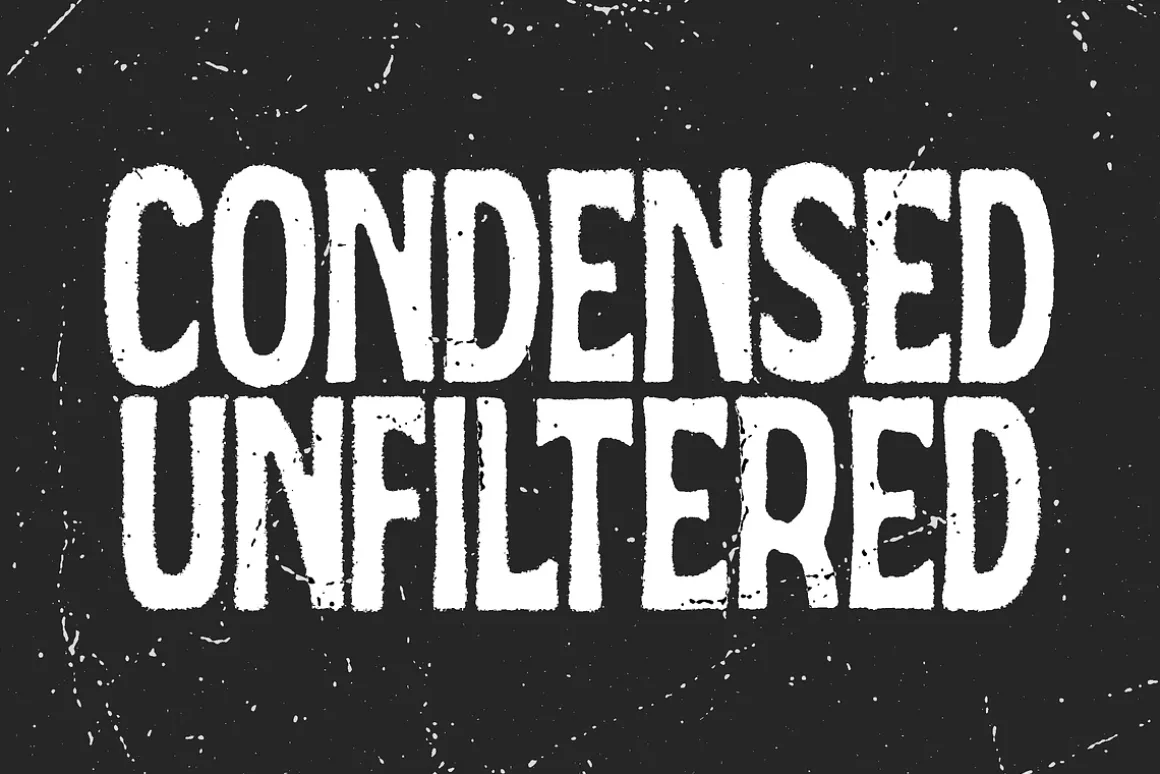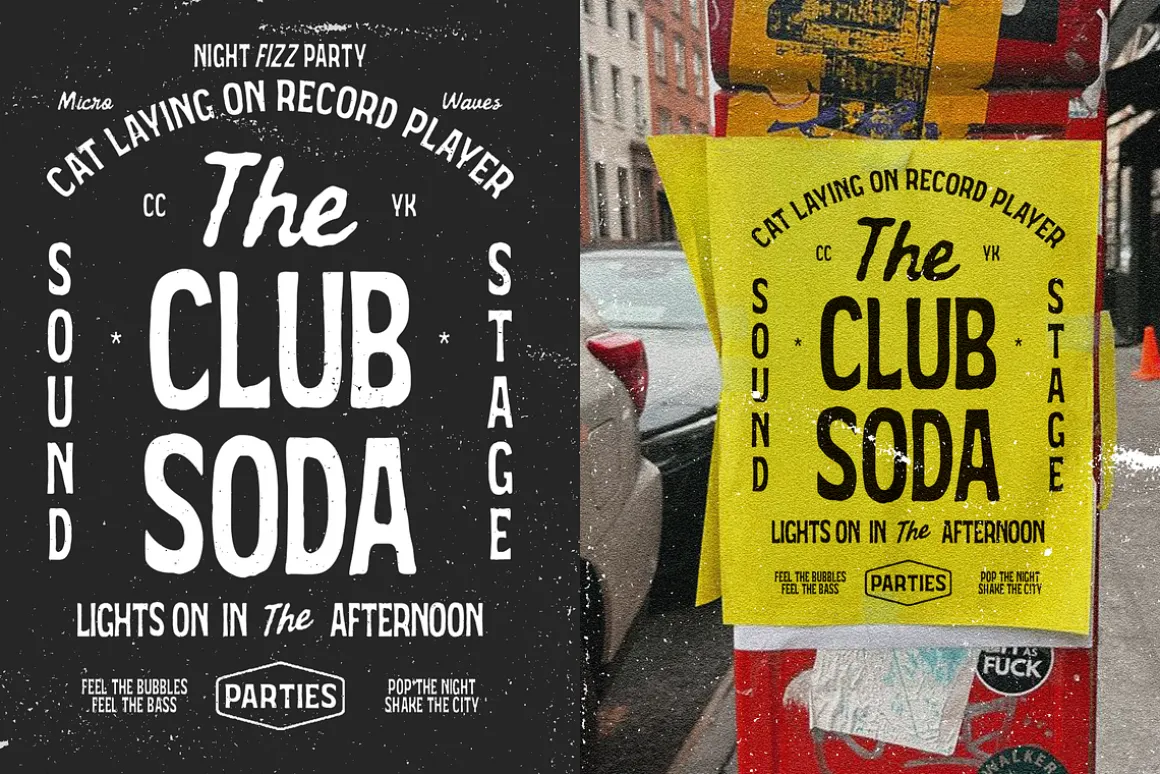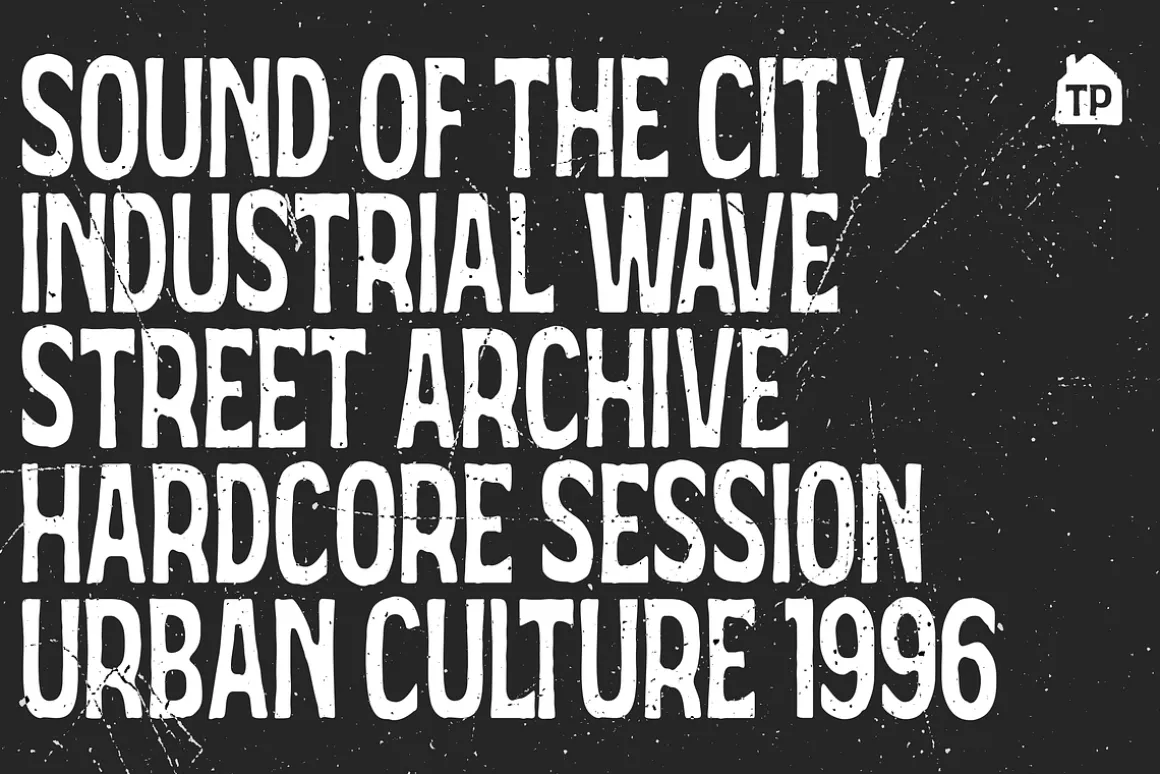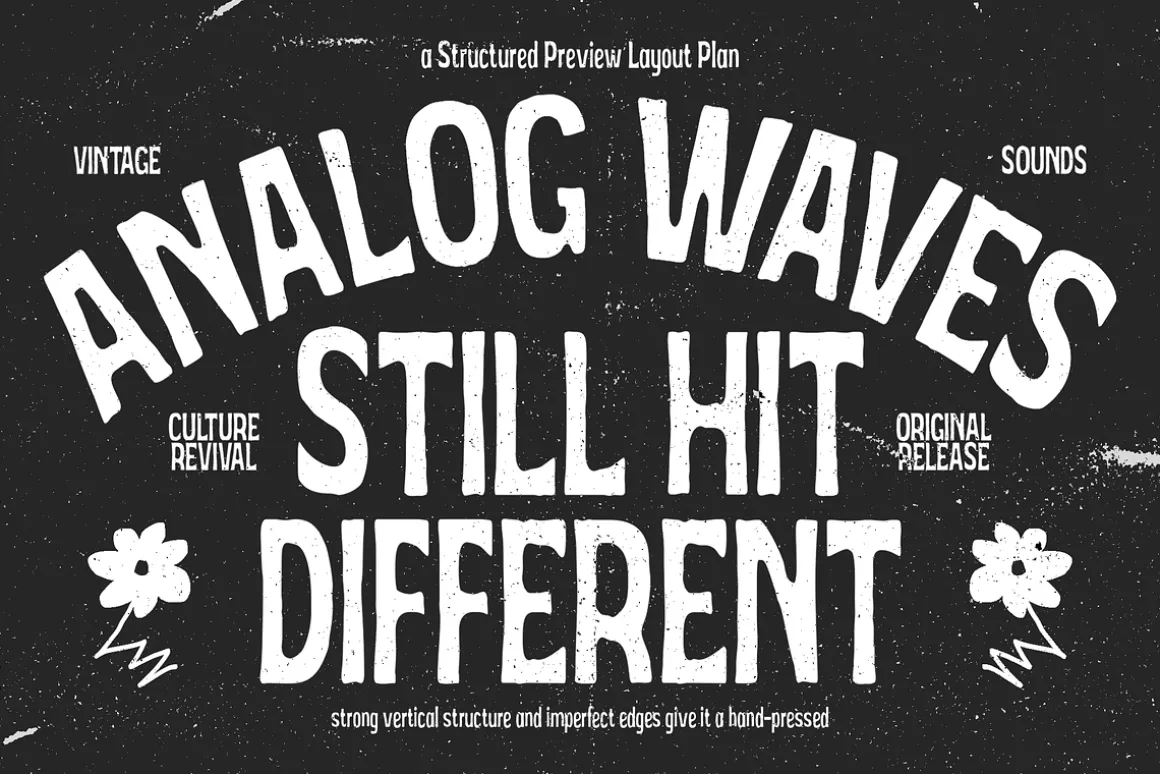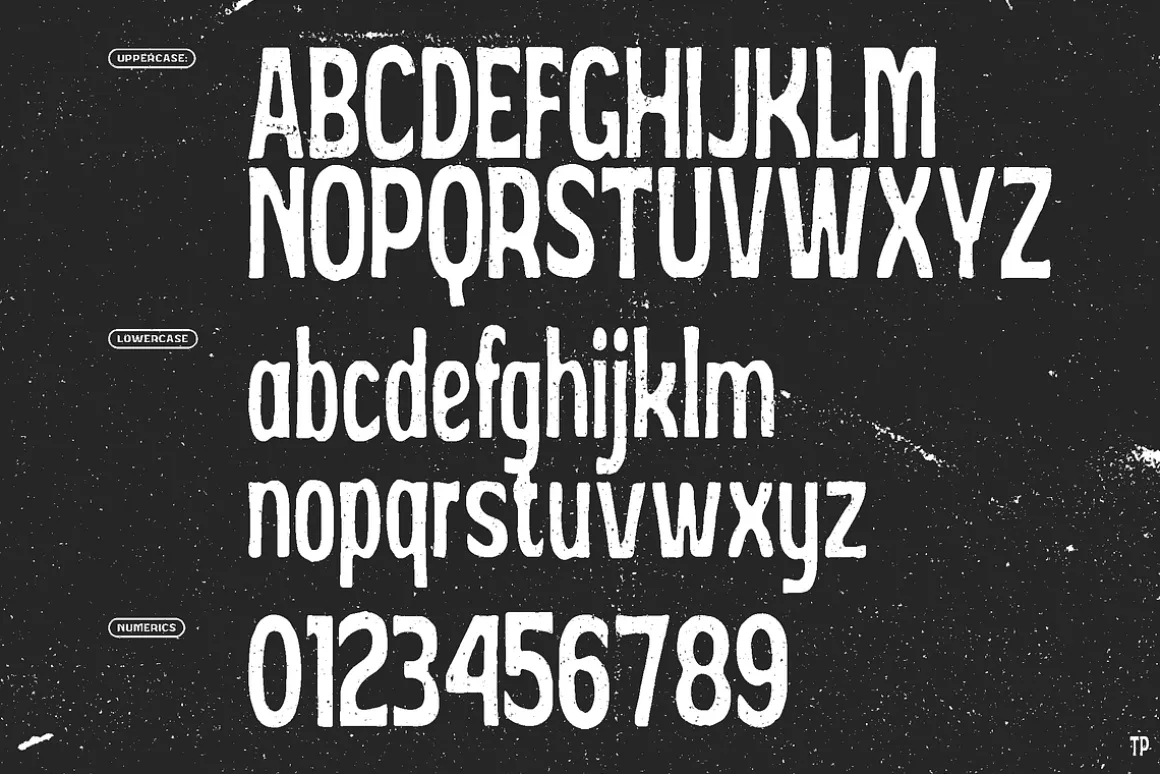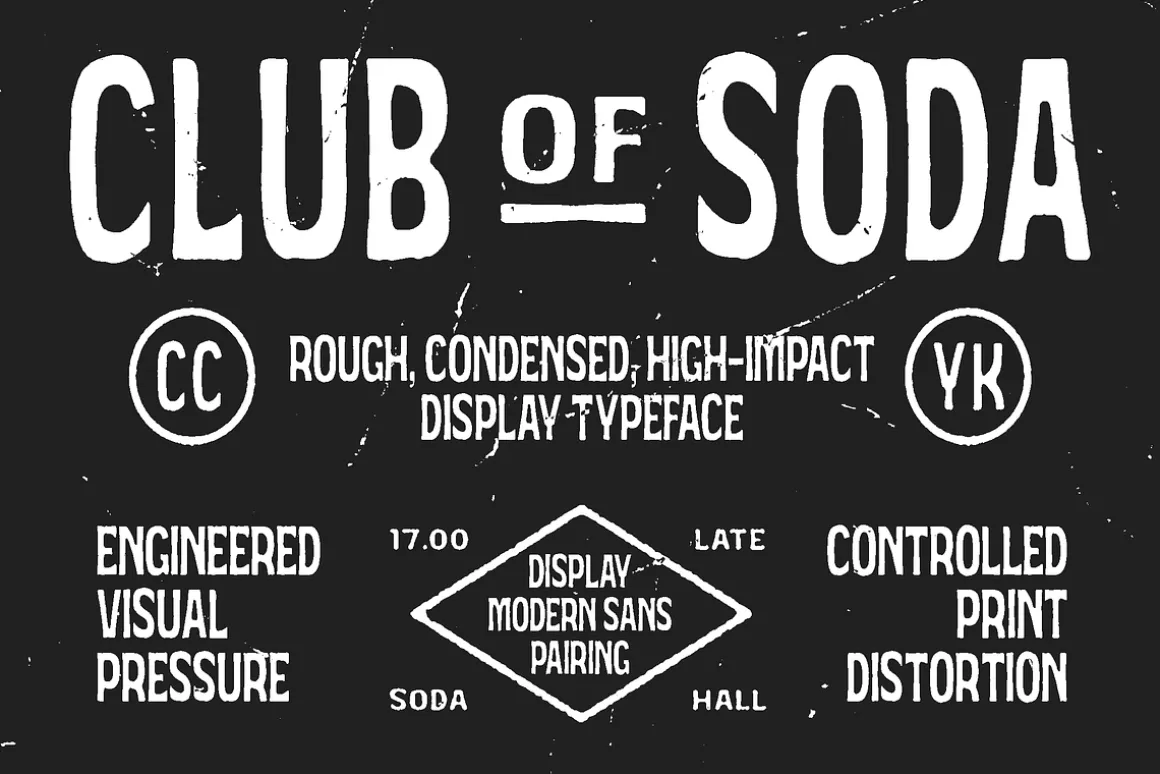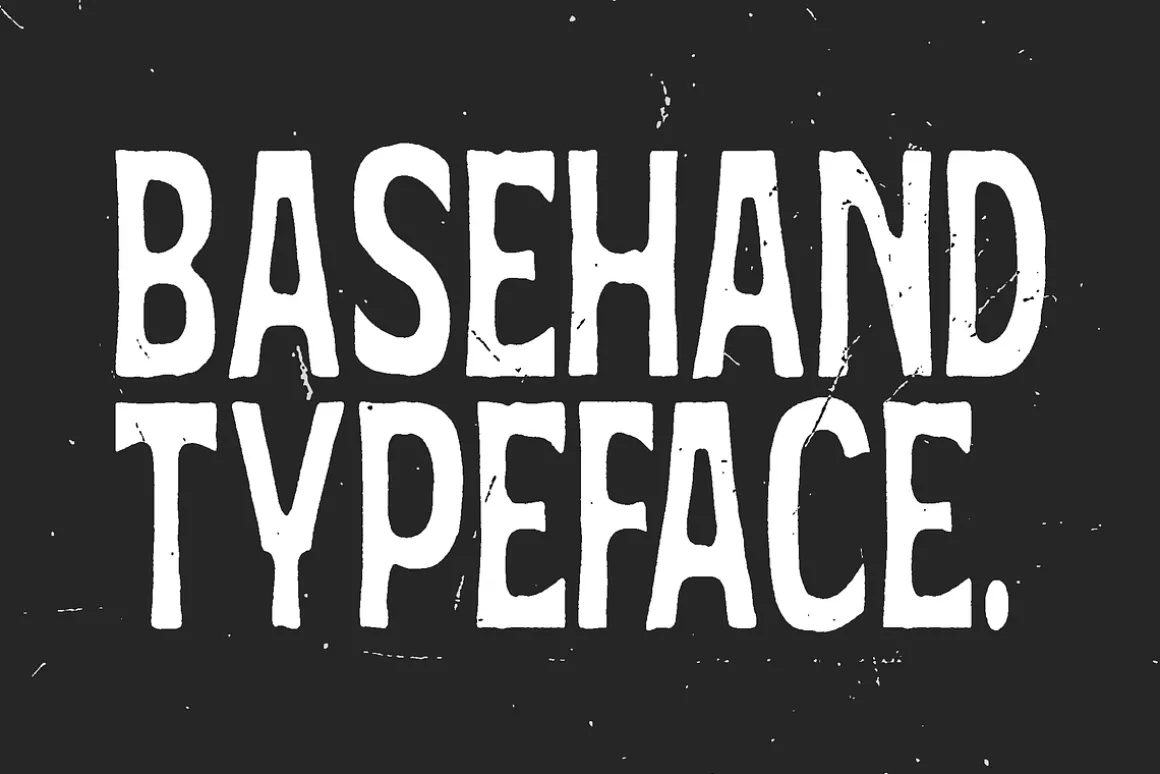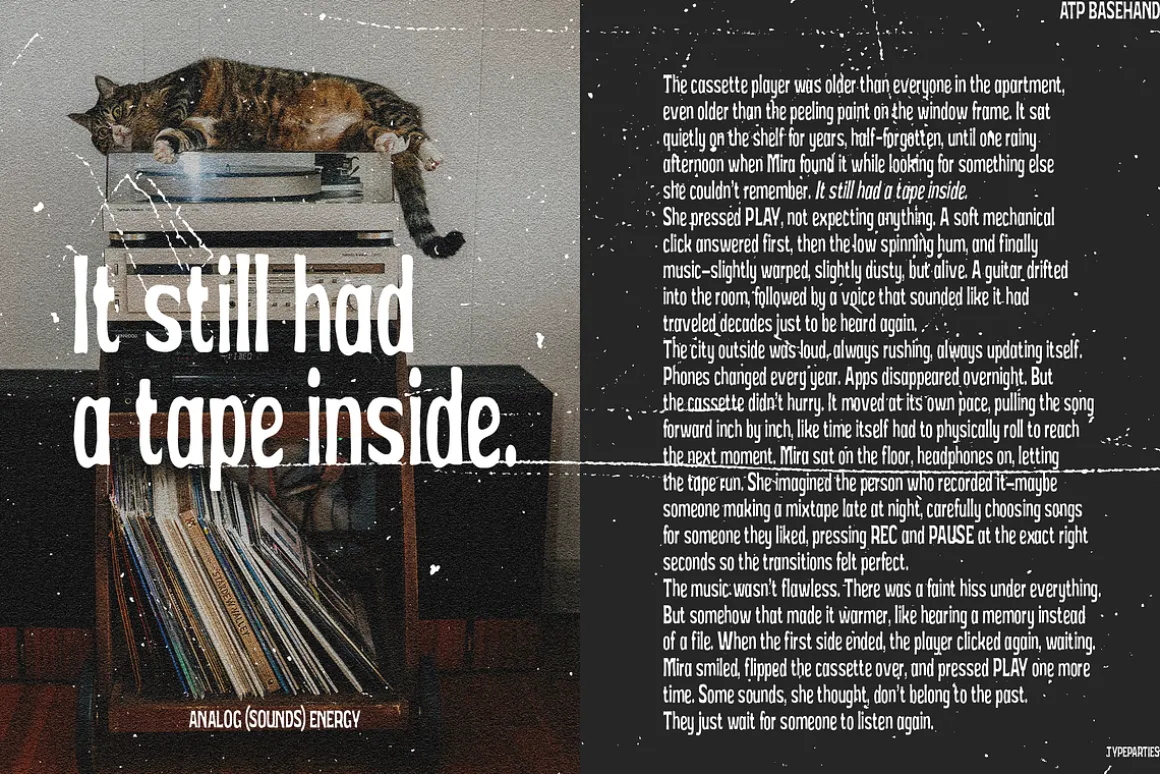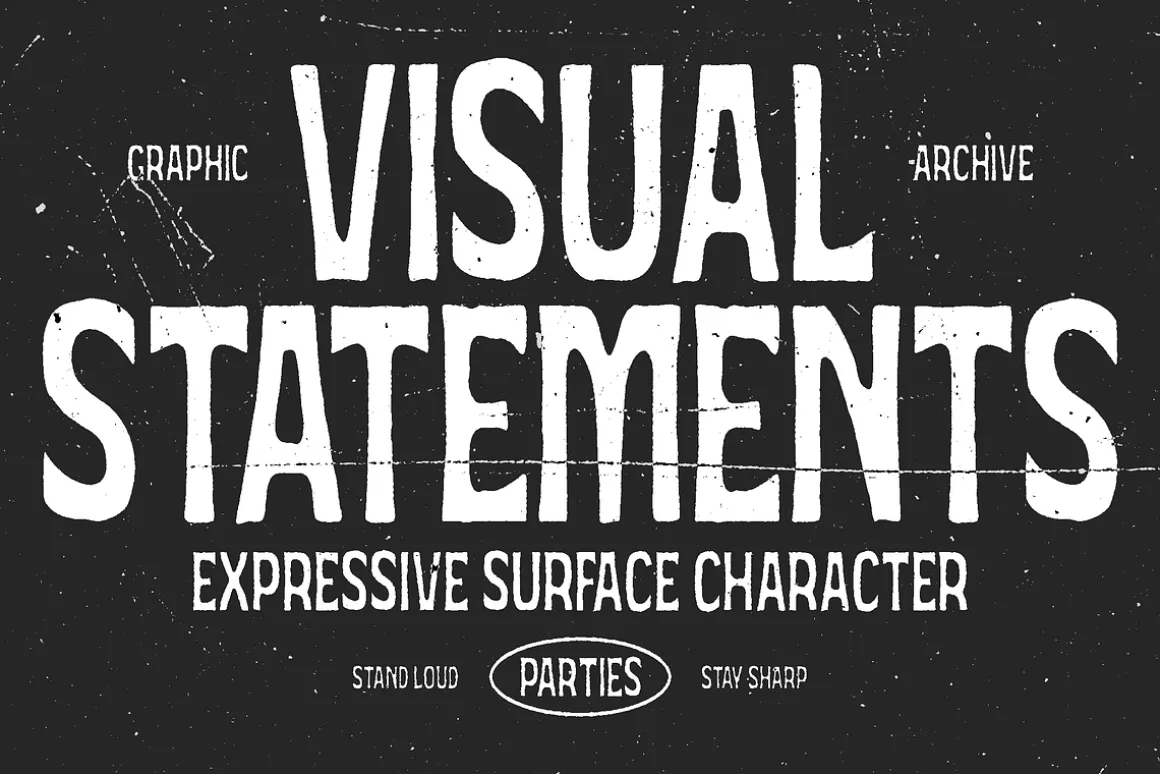
I designed Basehand as a response to something I often felt missing in many modern display fonts: raw energy that still feels intentional. The goal was not to create something perfectly clean, but to build a typeface that carries the emotional texture of real print processes, including ink pressure, rough edges, and the slight unpredictability seen in stencil or screen-printed lettering.
Every character was constructed on a condensed structure so designers can push stronger headlines into tighter spaces while maintaining visual impact. The rough contours are carefully controlled, not random, allowing the typeface to remain readable while still delivering a handcrafted intensity. I wanted it to feel loud, human, and slightly rebellious, yet dependable enough for branding, posters, packaging, and editorial applications.
Basehand represents my exploration of how imperfection can be engineered with precision, where expressive texture and modern typographic discipline meet to create a display typeface that immediately commands attention.